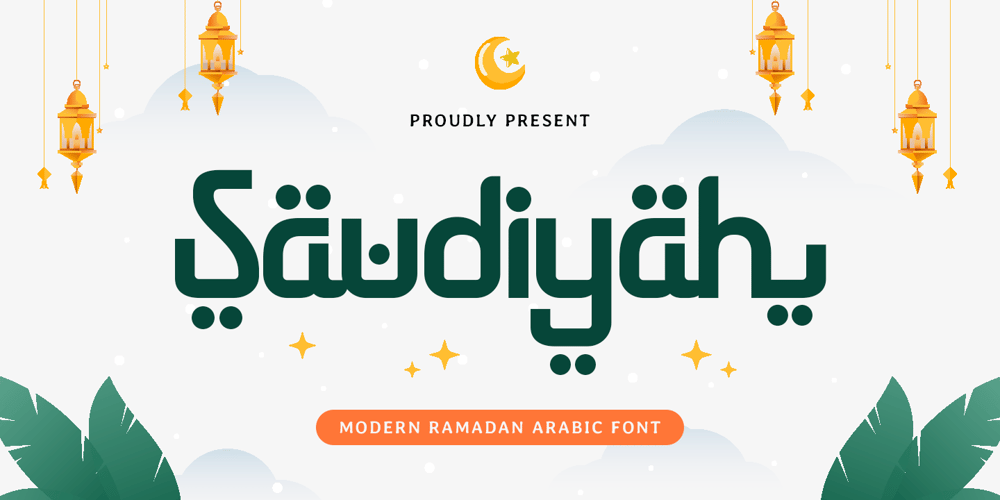
Saudiyah
Saudiyah font
Saudiyah Font Family was designed by Zamroni Hamzah and published by Sensatype Studio. Saudiyah contains 1 styles and family package options. Saudiyah – Modern Ramadan Arabic FontSaudiyah is a modern Arabic font crafted to enhance Ramadan-themed designs with a touch of sophistication and cultural charm. With its clean and versatile design, Saudiyah is perfect for branding, promotional materials, and social media posts that aim to capture the essence of Ramadan celebrations.Drawing inspiration from the rich traditions of Arabic calligraphy, Saudiyah delivers a contemporary twist with its modern structure. Whether you’re creating event invitations, product packaging, or digital banners, Saudiyah ensures your message resonates with style and grace. This font’s versatility makes it an excellent choice for projects demanding a unique and luxurious Arabic aesthetic.Let Saudiyah elevate your designs, offering a perfect harmony of modernity and tradition. Its refined style and distinctive characters bring a premium touch to both digital and print media, ensuring your Ramadan-themed creations stand out beautifully.Saudiyah Modern Ramadan Arabic Font Features: Elegant and Refined Arabic Characters Perfect for Ramadan and Festive Designs Punctuation, Numbers, and Symbols Includes 4 format already Uppercase and Lowercase Opentype Features Multilingual Characters available for:Afrikaans, Albanian, Asu, Basque, Bemba, Bena, Breton, Chiga, Cornish, Dutch, English, Estonian, Filipino, Finnish, Friulian, Galician, German, Gusii, Indonesian, Irish, Italian, Kabuverdianu, Kalenjin, Kinyarwanda, Luo, Luxembourgish, Luyia, Machame, Makhuwa-Meetto, Makonde, Malagasy, Manx, Morisyen, North Ndebele, Nyankole, Oromo, Portuguese, Quechua, Romansh, Rombo, Rundi, Rwa, Samburu, Sango, Sangu, Scottish Gaelic, Sena, Shambala, Shona, Soga, Somali, Spanish, Swahili, Swedish, Swiss.Thank you and best of luck with your designs!